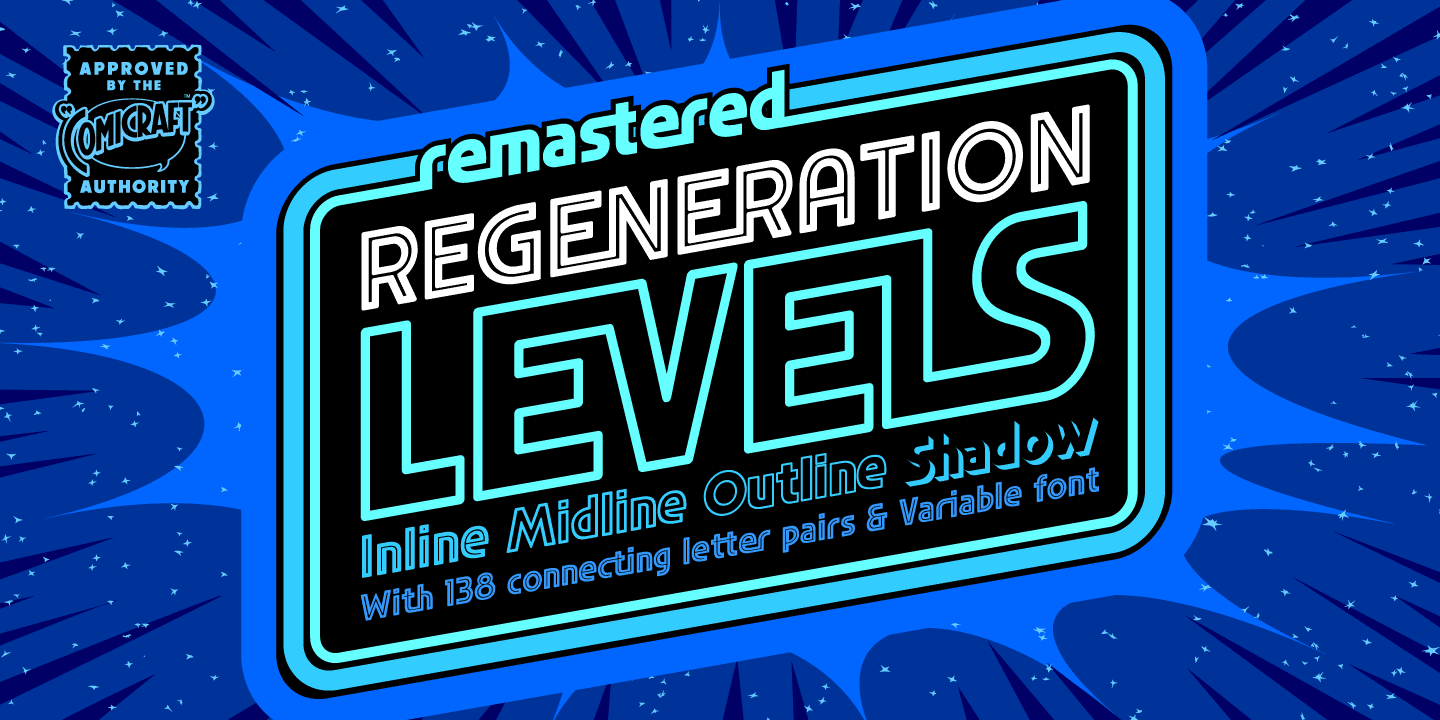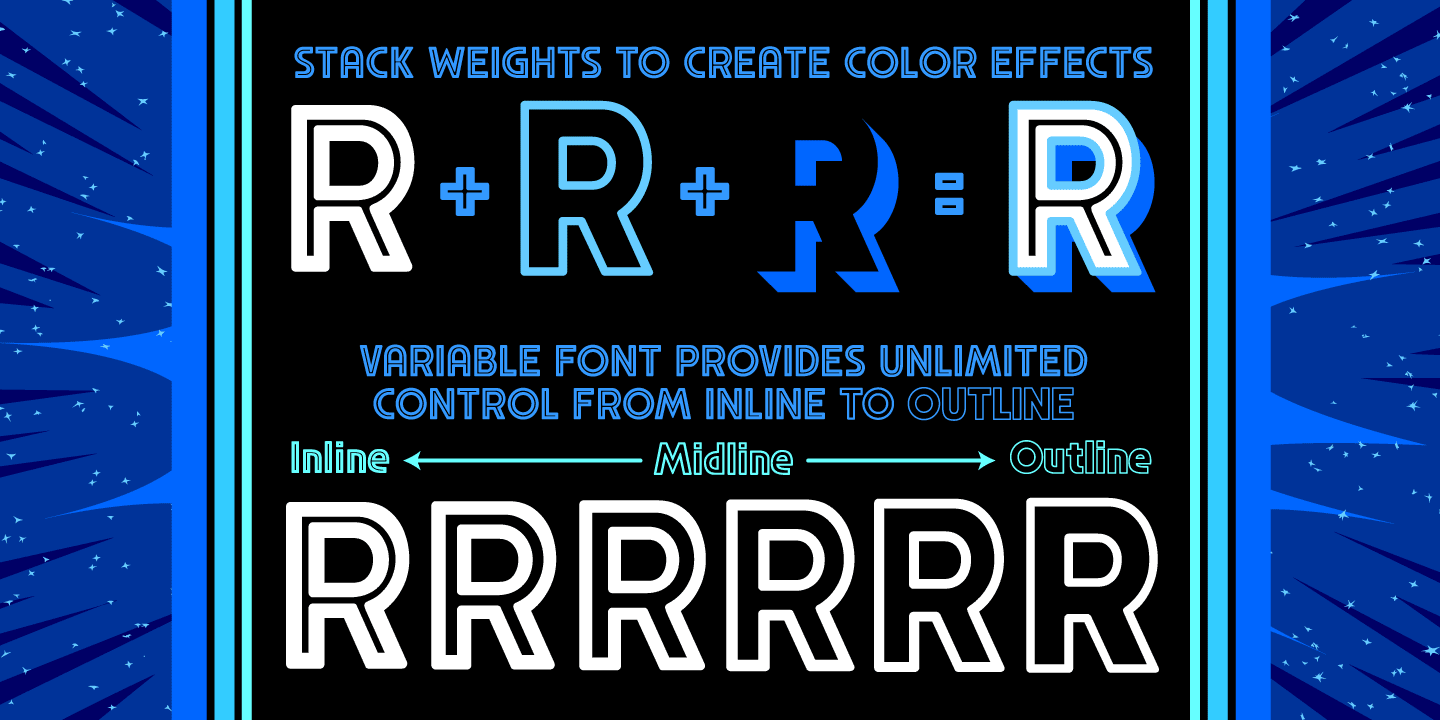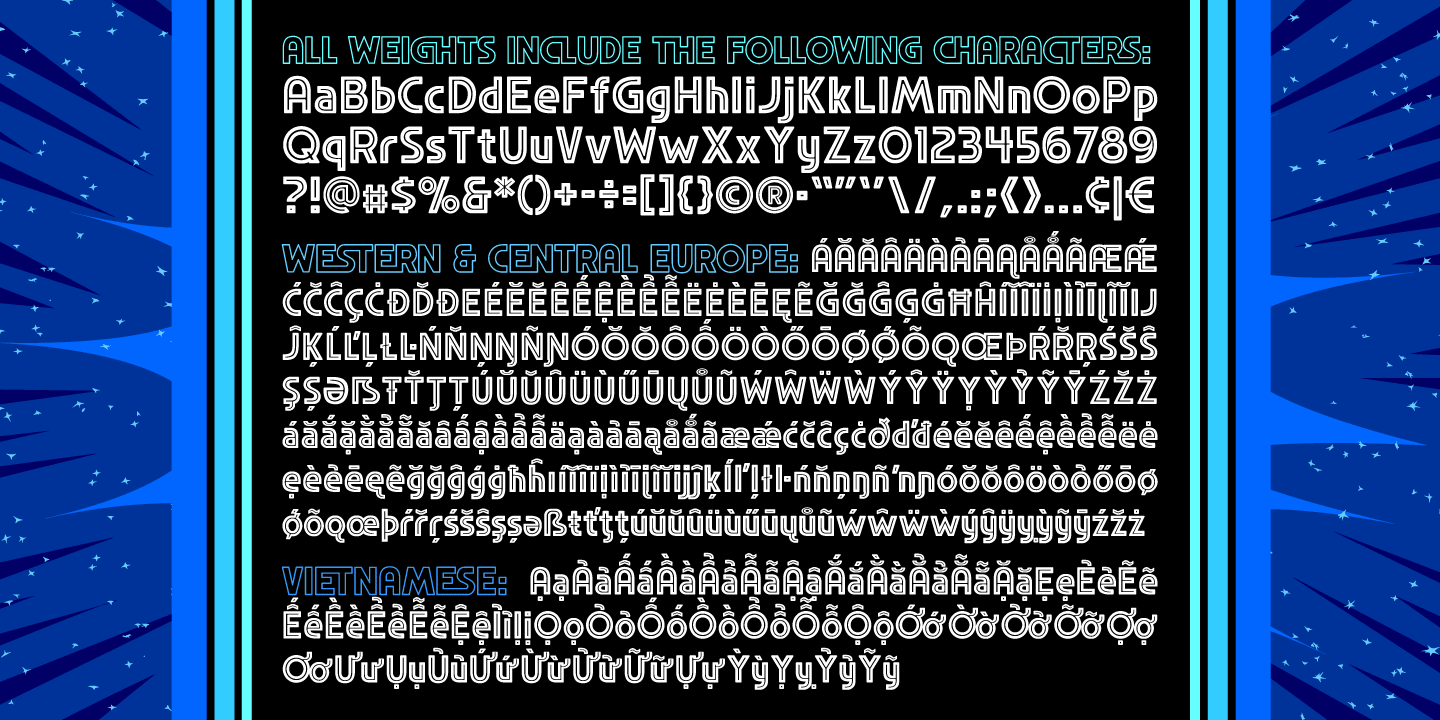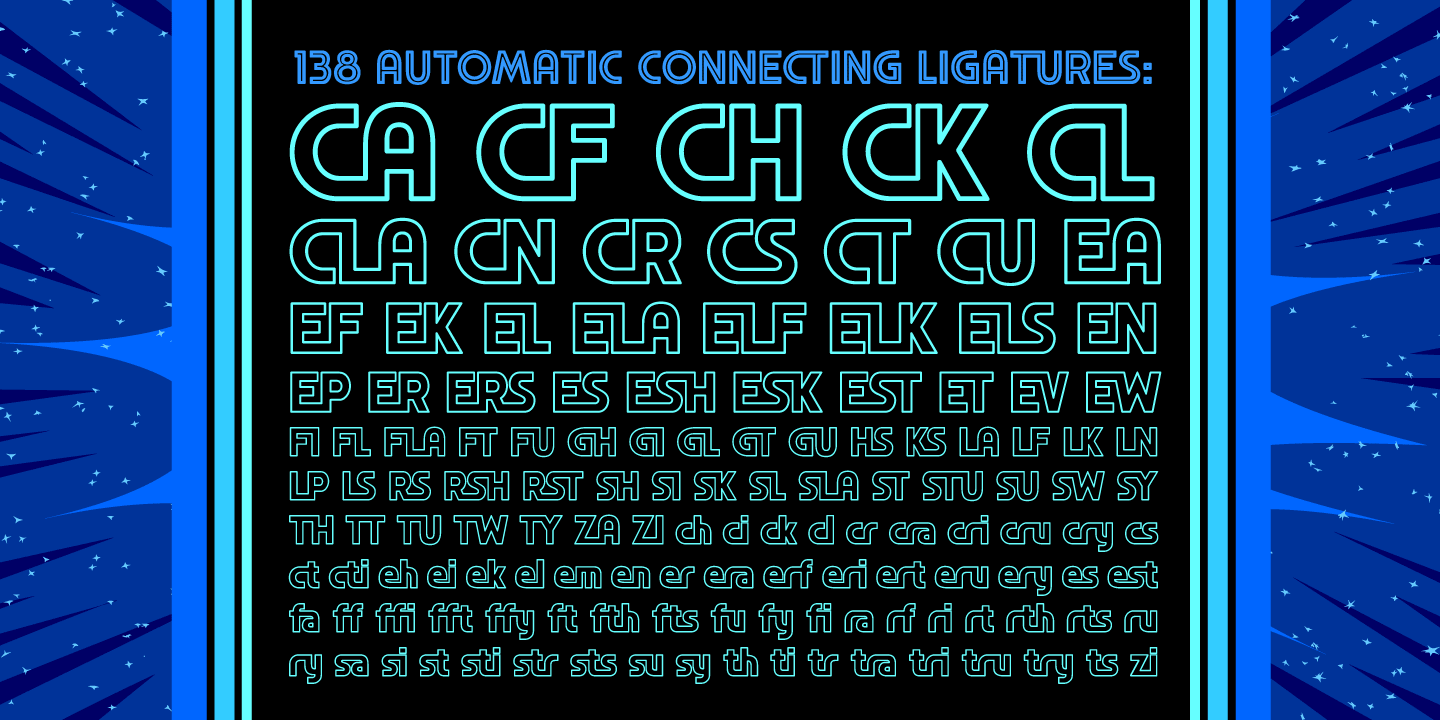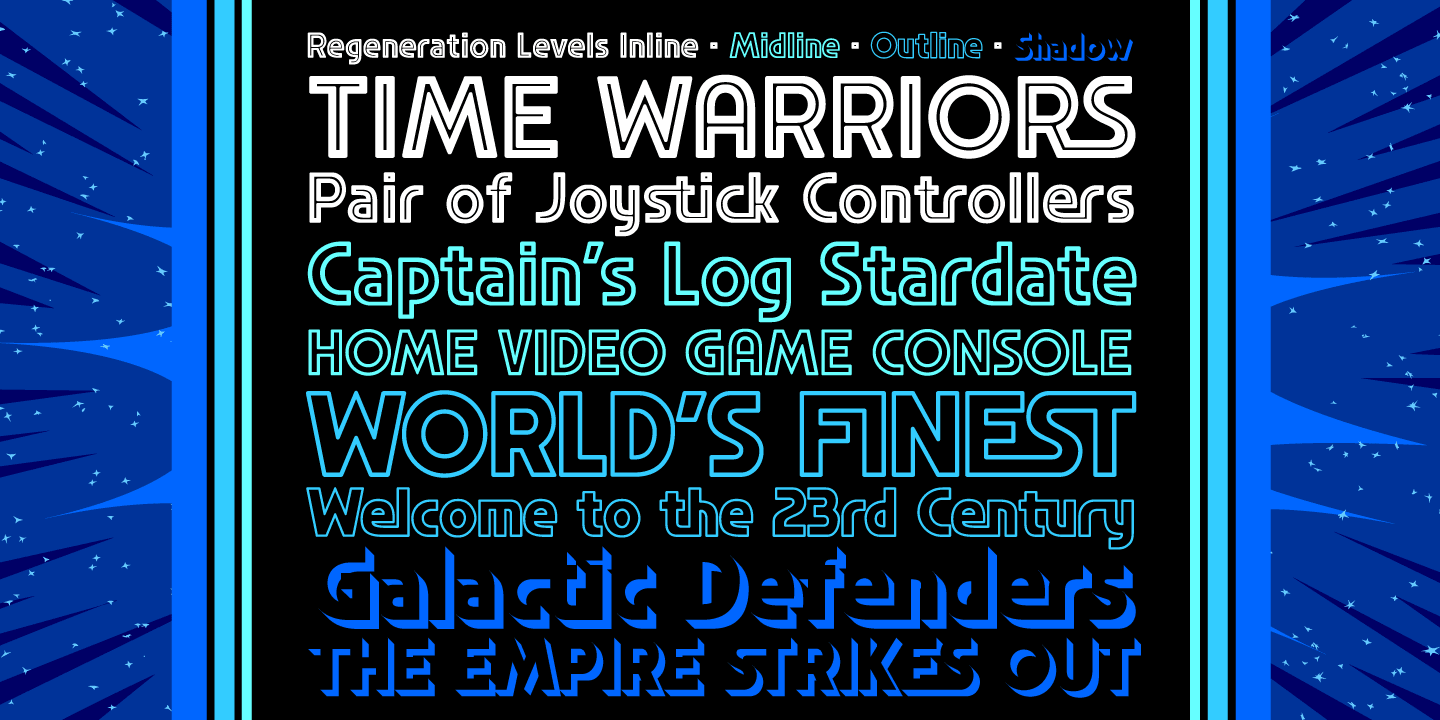
Regeneration Levels
Font Family by Comicraft Fonts
It's the end, but the moment has been prepared for... the Time War is over and things are wearing a bit thin, time for a new face, a new body, a new companion for our Timelord font... a REGENERATION!